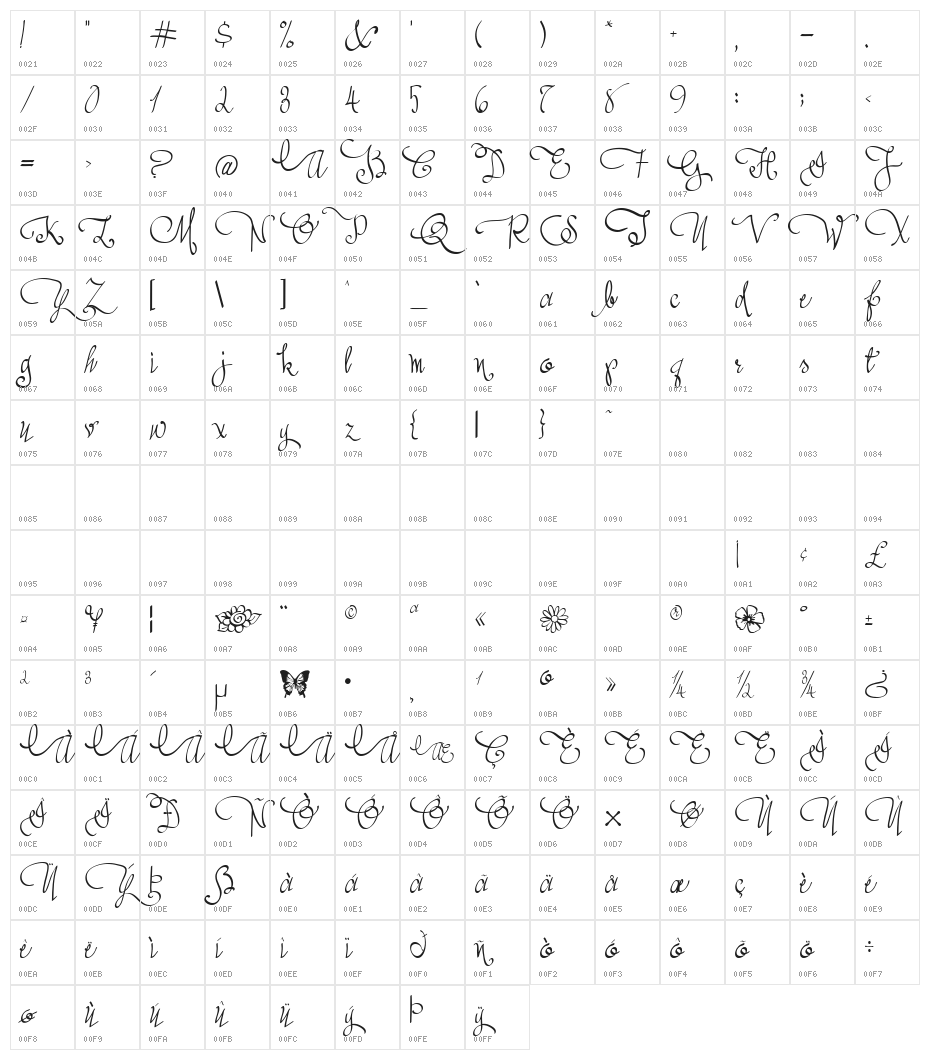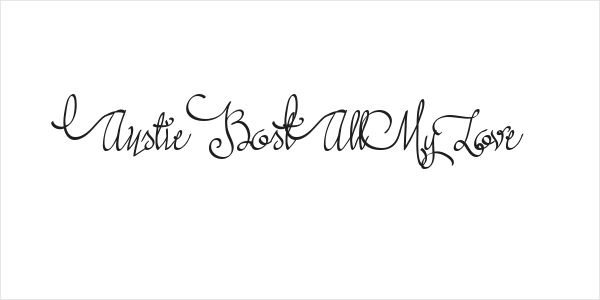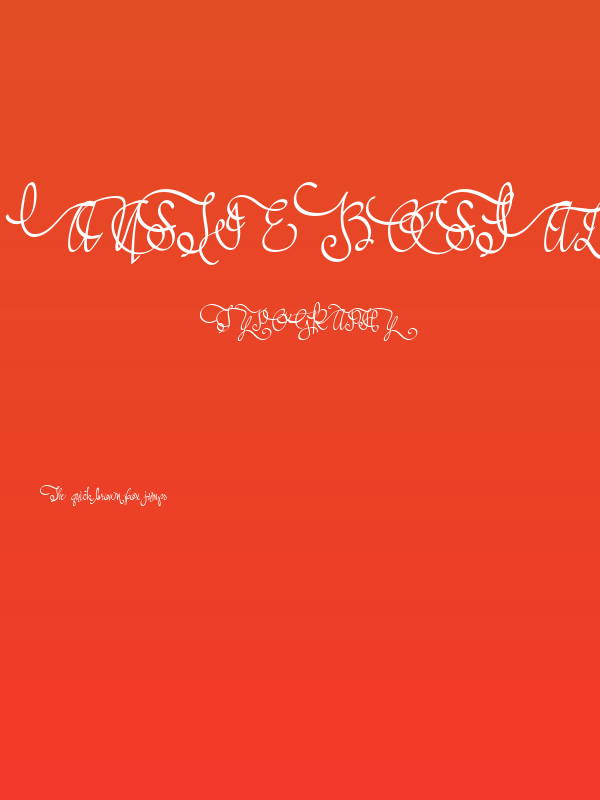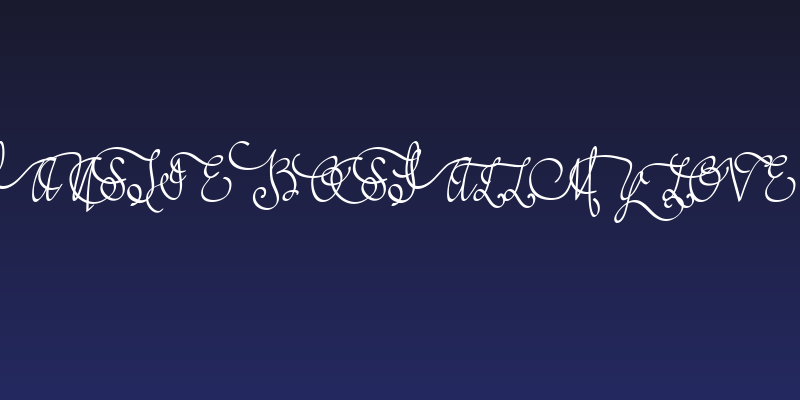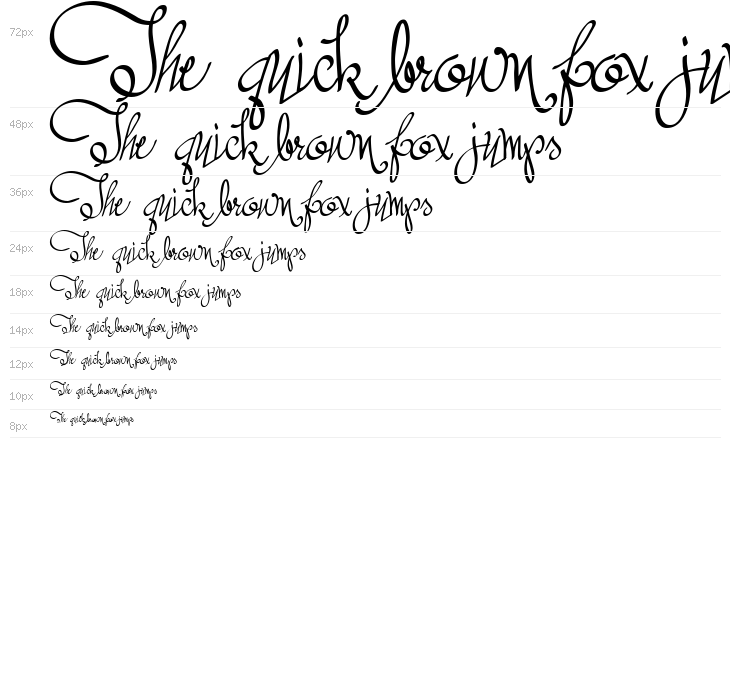
Austie Bost All My Love Font
Austie Bost All My Love Description
This font features an elegant and whimsical script style, characterized by its flowing and interconnected letterforms. The uppercase letters are ornate, with intricate loops and swirls that give a sense of movement and grace. The lowercase letters maintain a consistent style, with smooth curves and a slightly playful touch. Numbers and special characters are designed to match the overall aesthetic, ensuring a cohesive look across all text. This font exudes a romantic and artistic vibe, making it suitable for creative and decorative projects.
| Proposed Projects | Ideal for wedding invitations, greeting cards, personal branding, and artistic projects. |